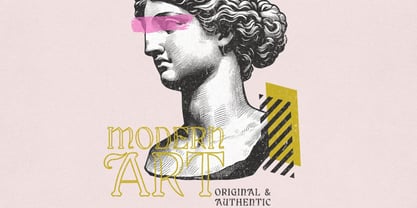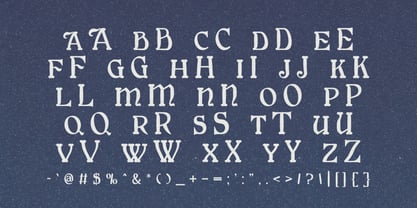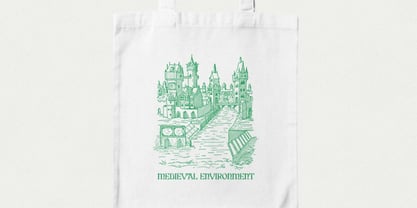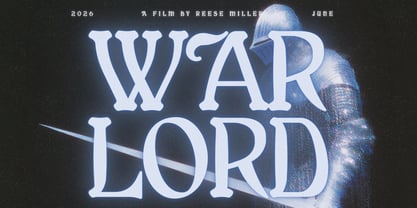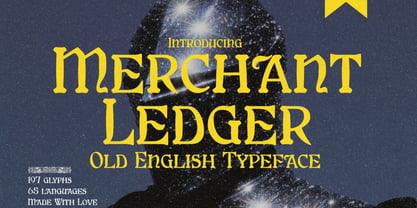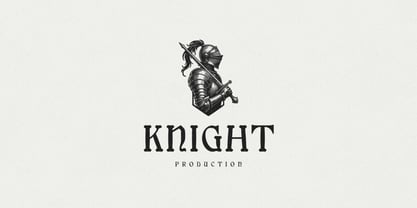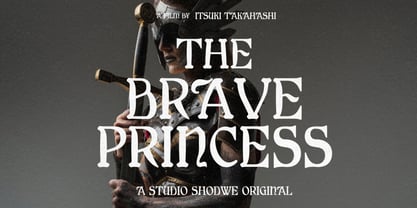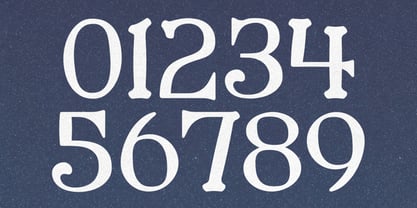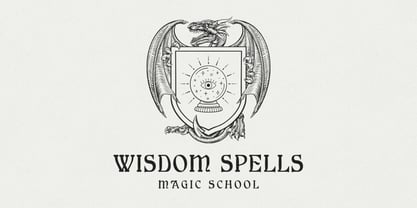
Merchant Ledger
Step into the shadows of history with Merchant Ledger, a striking blackletter Old English typeface forged from the spirit of gothic tradition. With its dramatic curves, intricate letterforms, and medieval charm, Merchant Ledger exudes the authority and mystique of ancient manuscripts and royal decrees.
Whether you're designing book covers, branding an apothecary, crafting vintage-inspired logos, or summoning the vibe of a dark fantasy saga, this font delivers boldness, elegance, and drama in every glyph. Its timeless Old English aesthetic is balanced with modern versatility, making it equally powerful on posters, apparel, album art, or signage.
Let your work speak in the language of kings, crusaders, and legendary tradesmen.